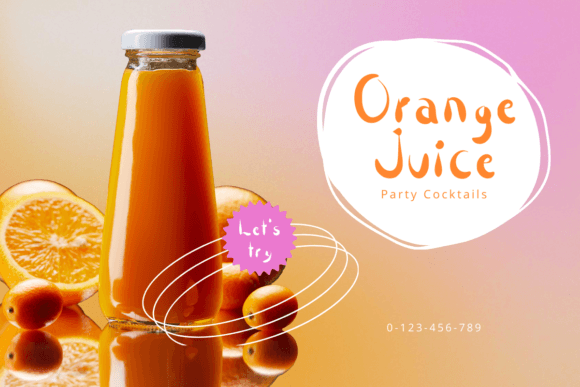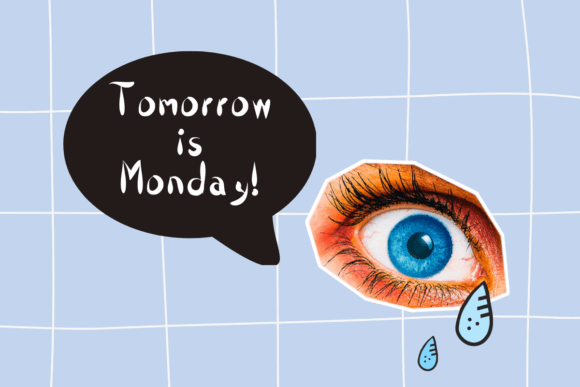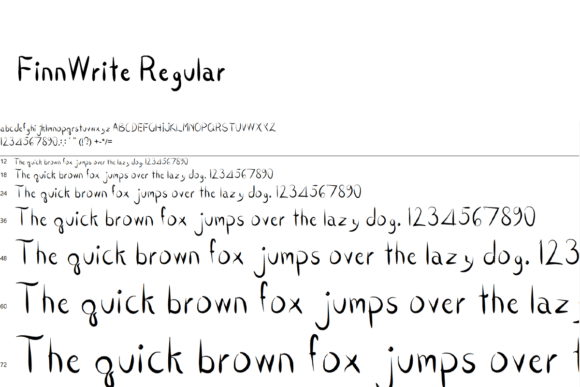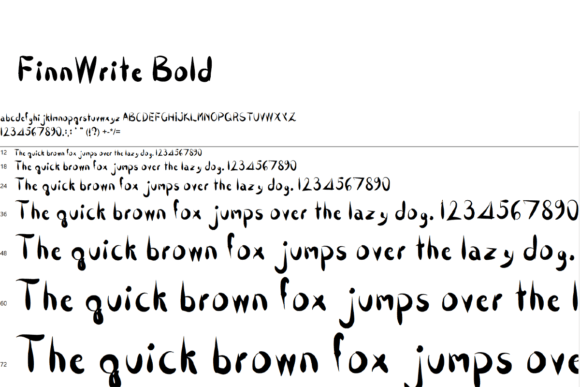
FinnWrite Font: Adding a Touch of Personality to Your Design Work
Are you tired of using the same old fonts in your design projects? Do you want to add a touch of personality and whimsy to your work? Look no further than FinnWrite, the handwritten font that’s perfect for designers, writers, and crafters alike. With its flowing, naturalistic curves and distinctive style, FinnWrite is the ideal choice for anyone who wants to add a little bit of character to their words.
The Story Behind FinnWrite
FinnWrite is a unique and charming font that’s been carefully crafted to bring a touch of artistry to your design work. Its creator, [designer name], was inspired by the beauty of handwritten writing and sought to capture the essence of natural, flowing script in a digital font. The result is a font that’s both elegant and approachable, with a distinctive style that’s sure to set your work apart.
What Makes FinnWrite So Special?
So, what sets FinnWrite apart from other fonts on the market? Here are just a few of the features that make it so special:
- Handwritten style: FinnWrite is a truly handwritten font, with each letter and character carefully crafted to capture the nuances of natural writing.
- Flowing curves: The font features beautiful, flowing curves that give it a sense of movement and energy.
- Distinctive style: FinnWrite has a unique and distinctive style that’s sure to add a touch of personality to your design work.
- Naturalistic feel: The font has a naturalistic feel that’s perfect for designers who want to create work that feels organic and authentic.
Perfect for Designers, Writers, and Crafters
FinnWrite is the perfect choice for anyone who wants to add a touch of personality to their design work. Here are just a few examples of the types of projects where FinnWrite would be a great fit:
- Graphic design projects: FinnWrite is perfect for graphic designers who want to add a touch of whimsy to their work, from brochures and flyers to logos and branding materials.
- Writing projects: Writers who want to add a touch of personality to their work will love FinnWrite, which is perfect for manuscripts, poetry, and other types of written work.
- Crafting projects: Crafters who love to create handmade cards, gift tags, and other paper crafts will adore FinnWrite, which is perfect for adding a personal touch to their work.
How to Use FinnWrite in Your Design Work
Using FinnWrite in your design work is easy! Here are a few tips to get you started:
- Pair it with other fonts: FinnWrite looks great when paired with other fonts, such as sans-serif fonts for a modern contrast or serif fonts for a more traditional look.
- Experiment with colors: FinnWrite looks great in a variety of colors, from bold and bright to soft and pastel.
- Play with textures: Add some texture to your design work by layering FinnWrite over a background image or texture.
Get Ready to Add Some Personality to Your Design Work!
In conclusion, FinnWrite is a unique and charming font that’s perfect for anyone who wants to add a touch of personality to their design work. With its handwritten style, flowing curves, and distinctive style, FinnWrite is sure to set your work apart. Whether you’re a graphic designer, writer, or crafter, FinnWrite is the ideal choice for your next project. So why wait? Try FinnWrite today and see the difference it can make!